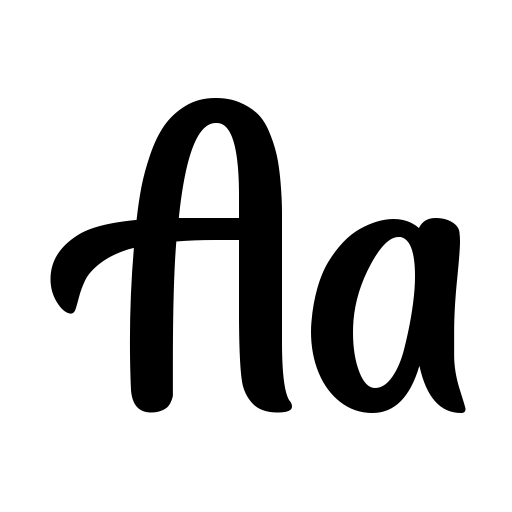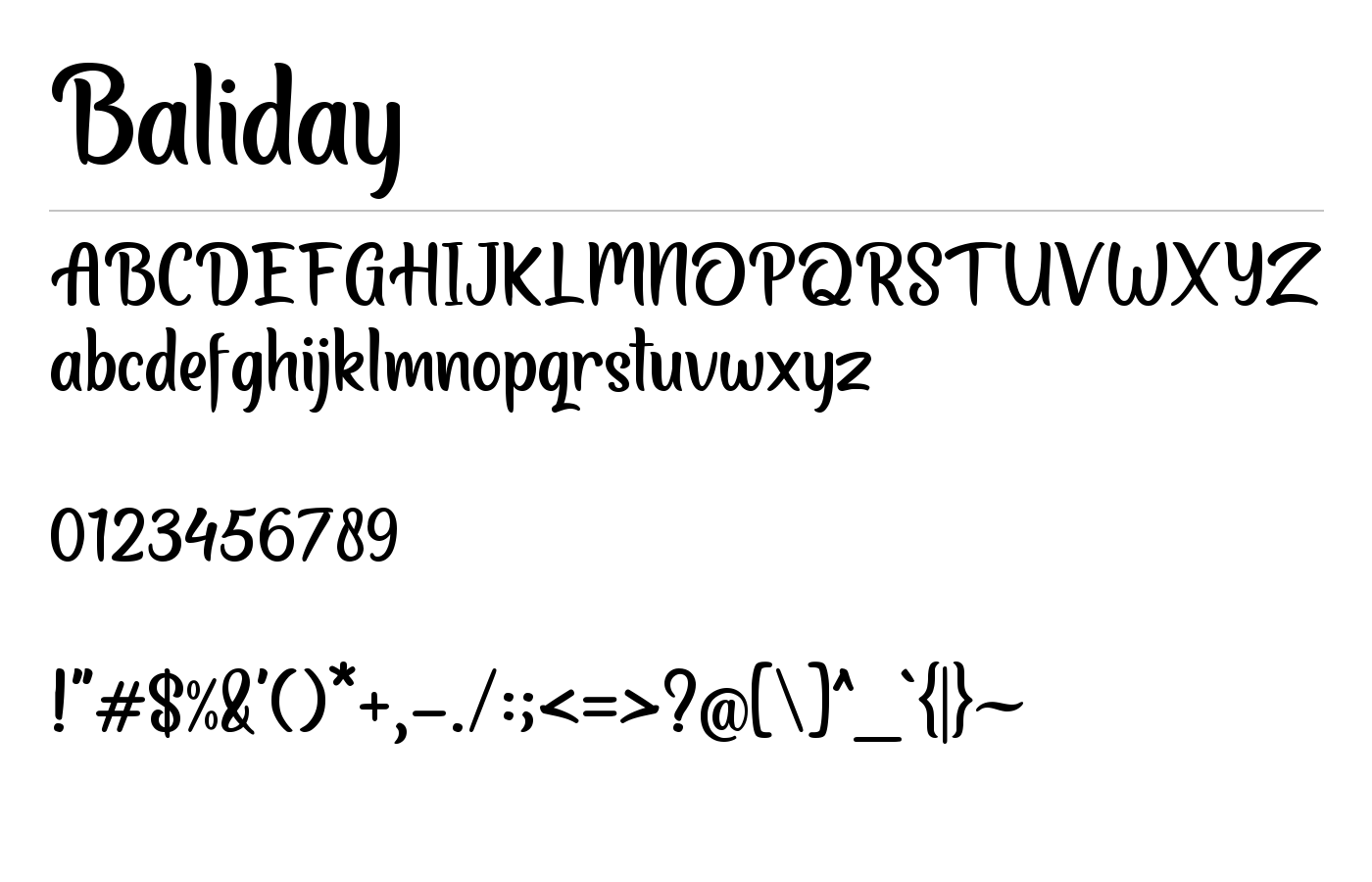
Baliday is a playful and modern script font with a friendly, hand-drawn feel. Its smooth, slightly rounded strokes and lively letterforms make it ideal for adding a personal, approachable touch to branding, invitations, and creative projects. This font works well for headlines and logos where warmth and charm are desired.
Baliday Font